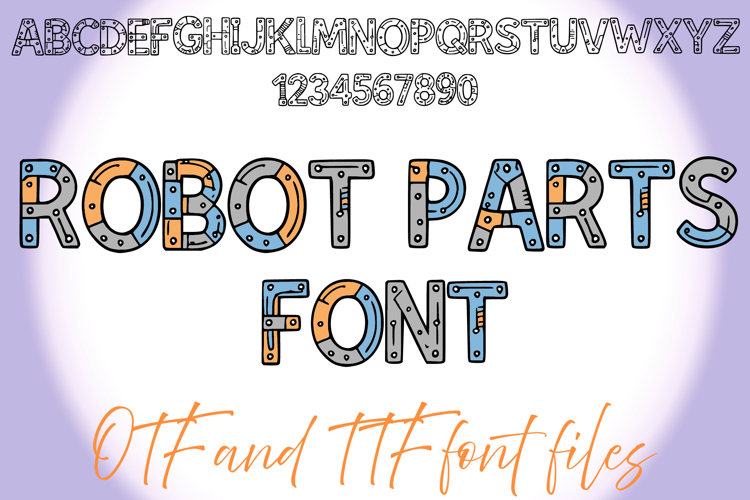
Robot Parts Lettering ABC Text Font Alphabet OTF Type IllustrationÂ
A fun style font where you can create your own words and colour them to your vision!